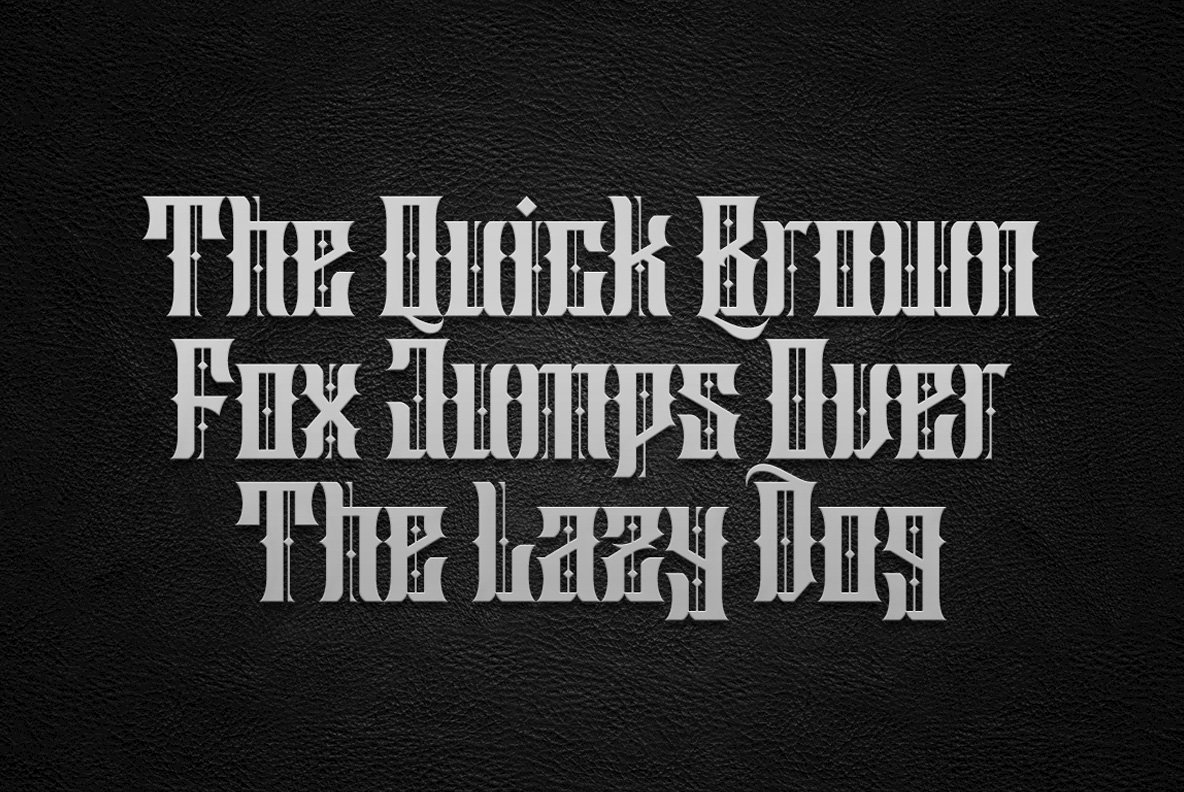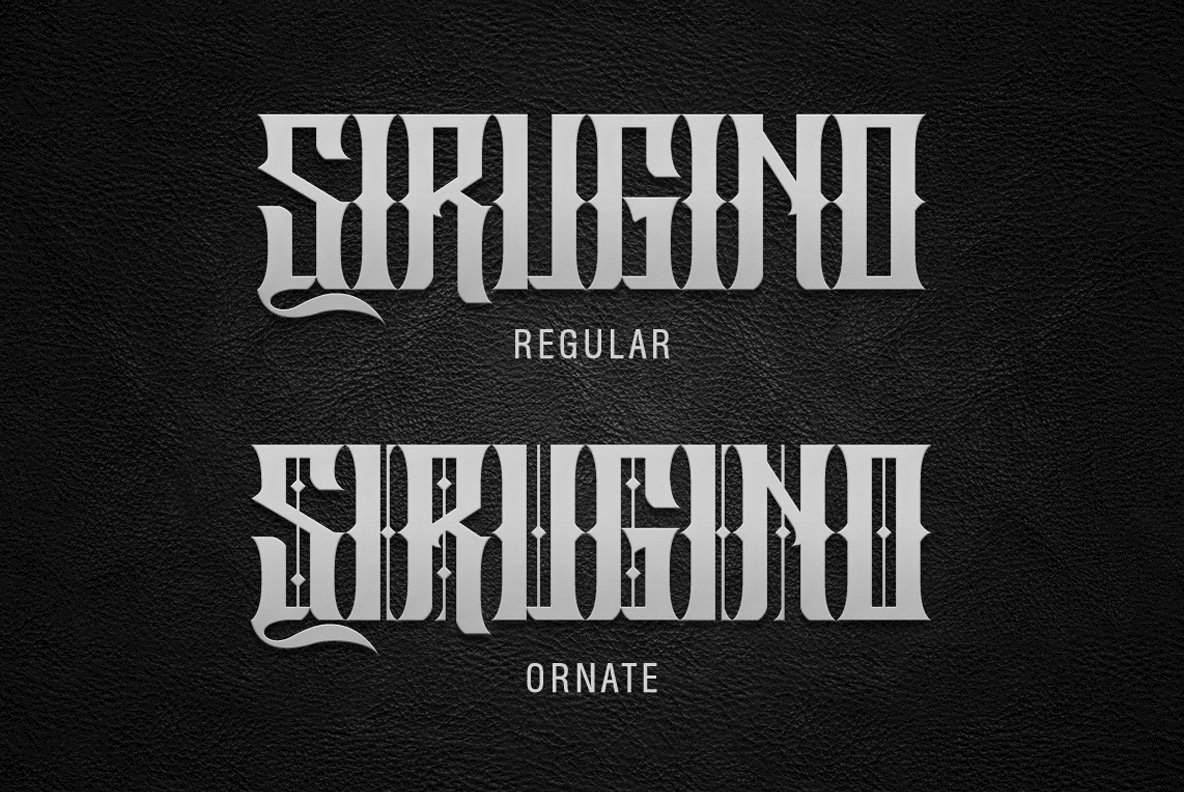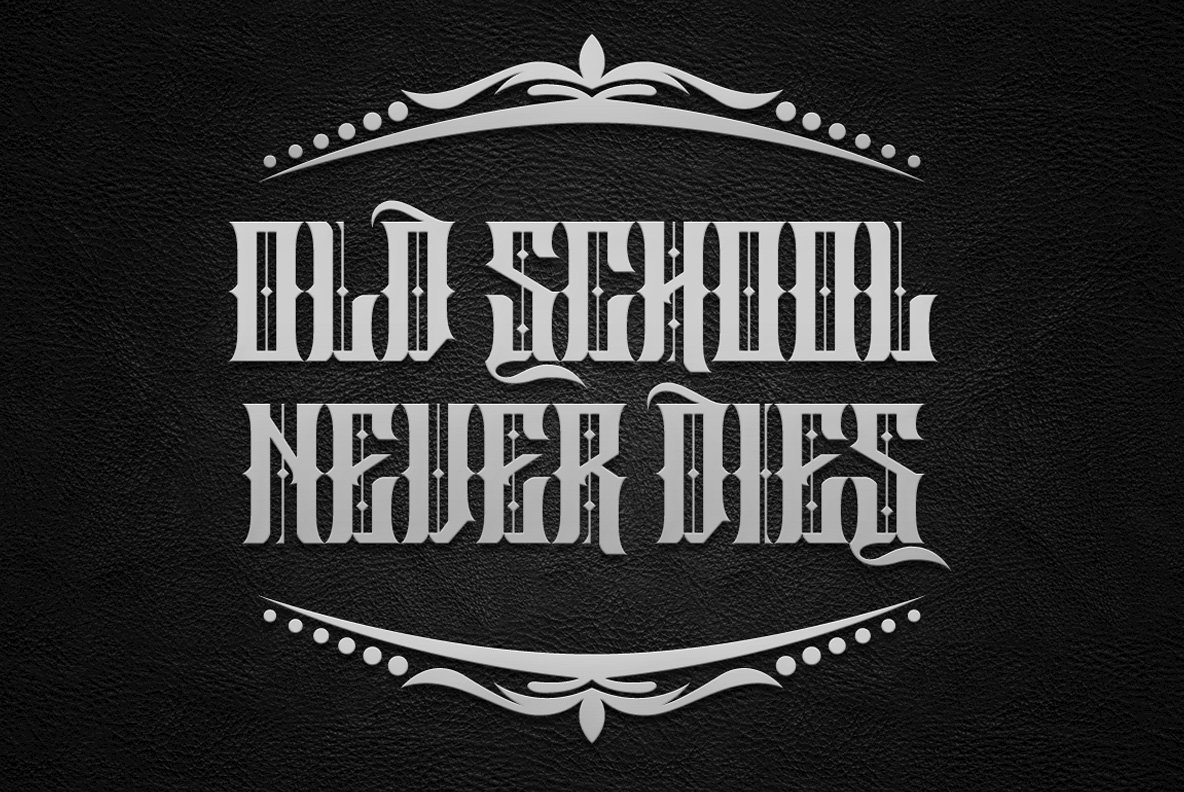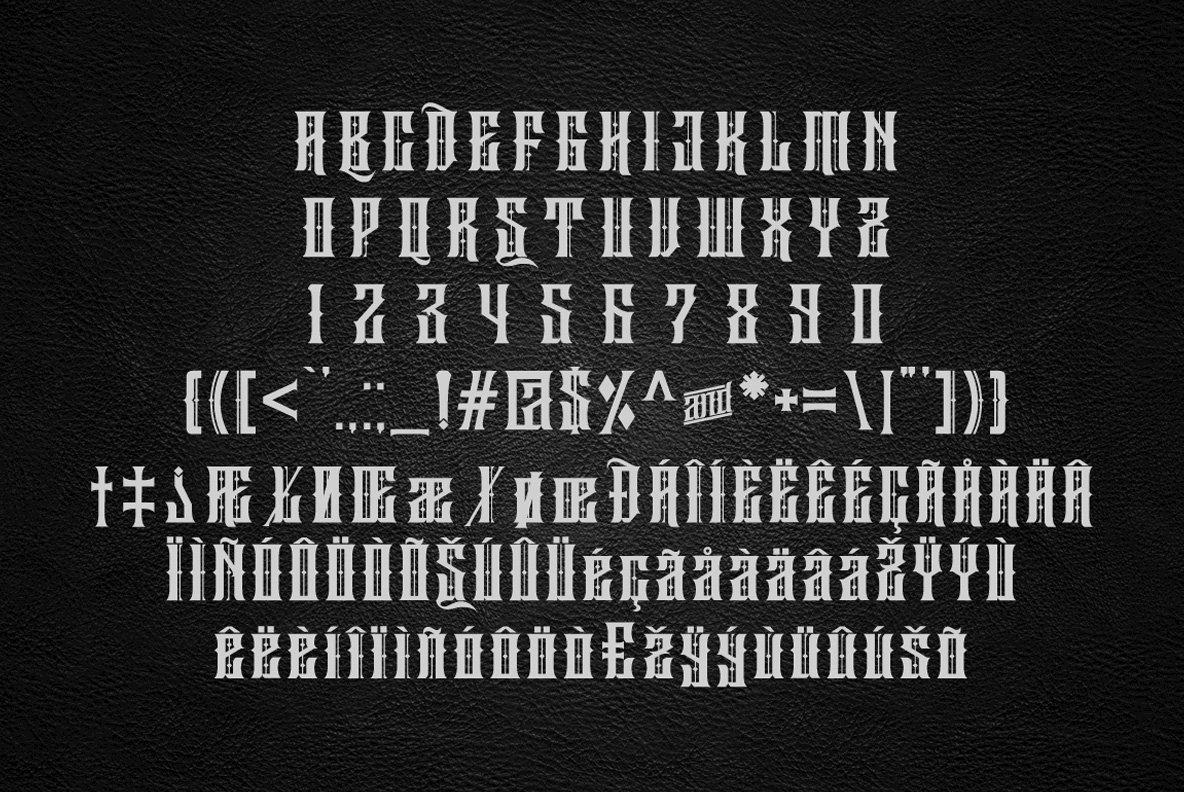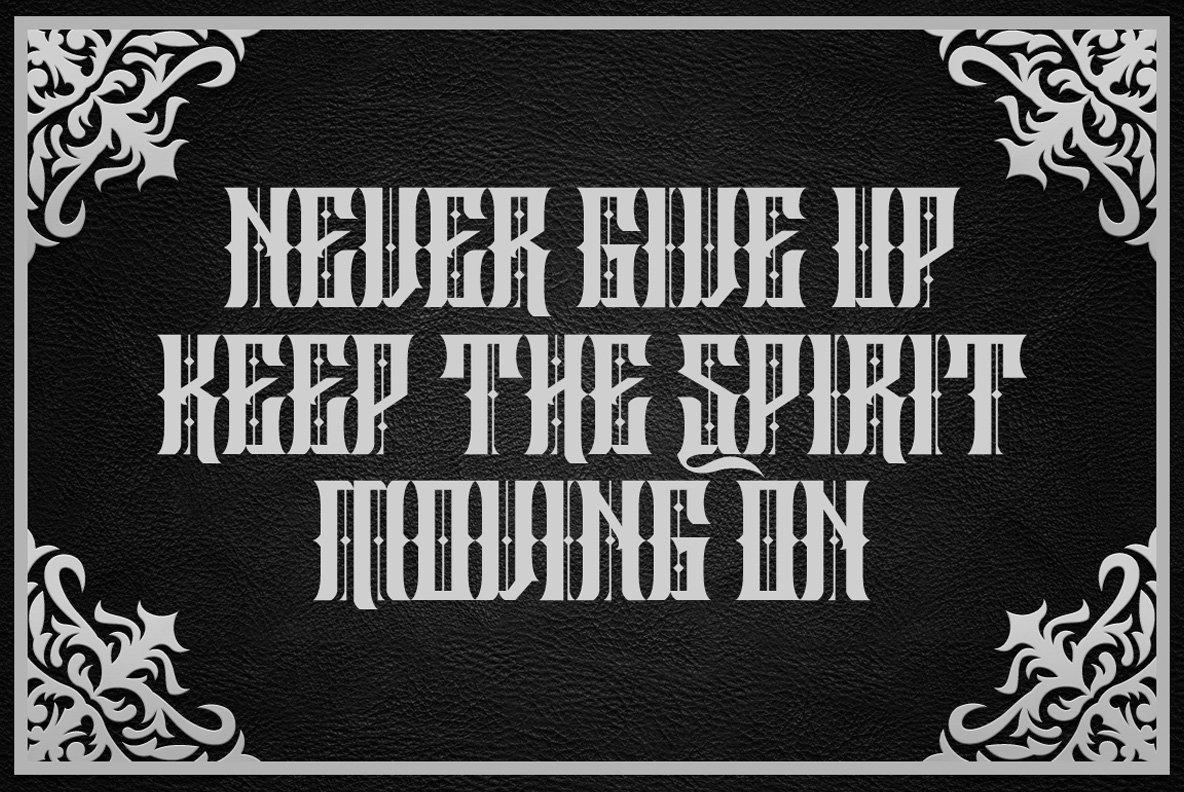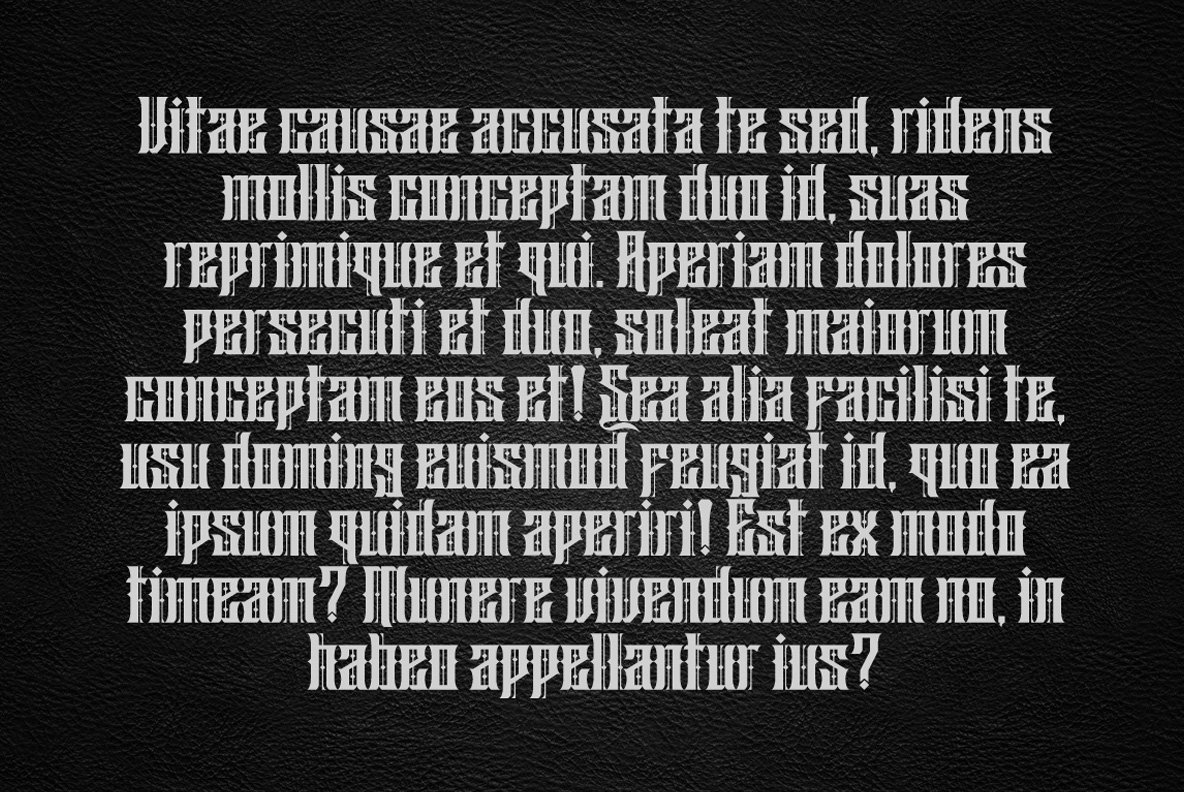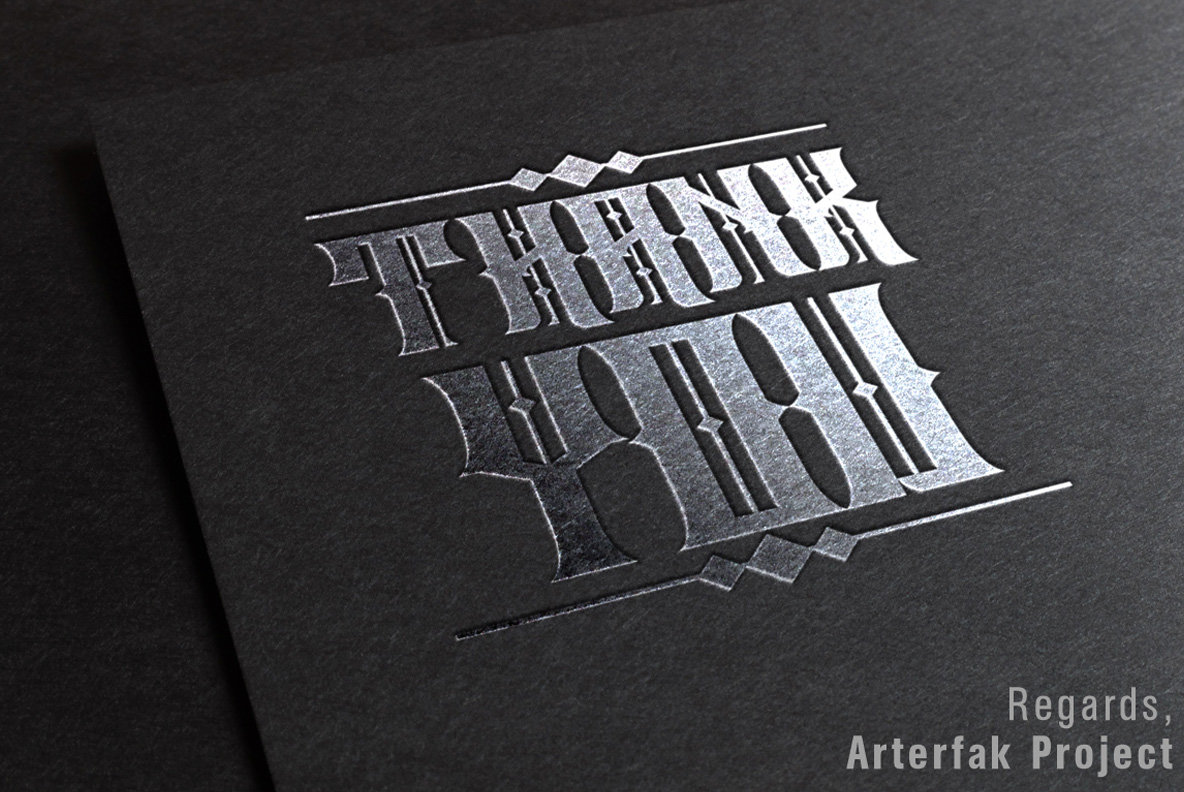
Sirugino Typeface: Combining Gothic and Black-Letter Styles
Discover the striking cohesion of gothic and black-letter aesthetics with the Sirugino Typeface. Its meticulously crafted design enhances simplicity through refined metric adjustments, bringing a unique touch to your creative projects. This typeface is recommended for enhancing stickers, key-chains, patches, and other cutting materials. Its versatility is also ideal for eye-catching displays, titles, headlines, and sub-headlines in artwork.
• Available in regular (clean) and ornate styles.
• Uppercase and lowercase letters.
• Includes numbers and standard punctuation.
• Basic Latin glyphs supported.